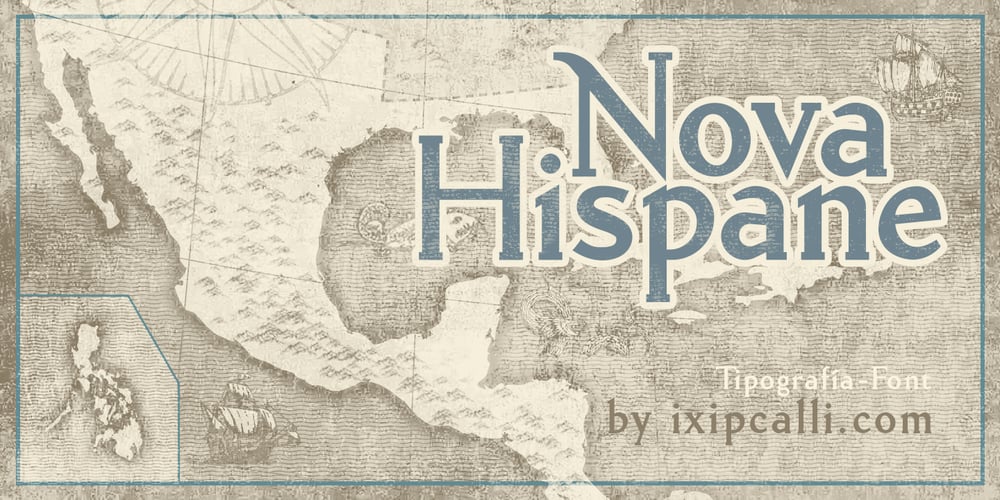
Nova Hispane
Nova Hispane font
Nova Hispane Font Family was designed by Francisco Arellano and published by Ixipcalli. Nova Hispane contains 8 styles and family package options. NovaHispane typeface is a serif typeface with a clear, serious, elegant, old and modern touch at the same time. This typeface is perfectly suitable to be used in books, magazines or any printed media that requires showing a set of traditional or modern styles. Its four weights Light, Regular, Bold, and Heavy make a well-marked visual game for highlighting words from text; in addition to having the italic forms for each weight.